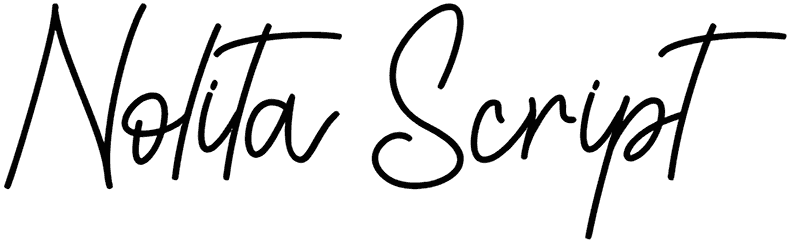
Nolita Script Font
Although we are told not to don’t judge a book by its cover, when it comes to graphic content including posters, illustrations, logos, social media posts, or web page templates, people judge the quality of your work by its appearance, and on this occasion, an autograph font such as Nolita Script can be really helpful.
This script font offers you two distinctive styles and widens your selection range in the middle of sharing a sense of professionalism, momentum, or personalization.